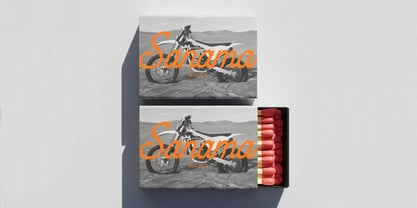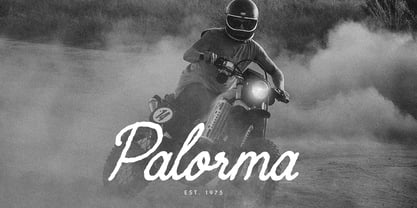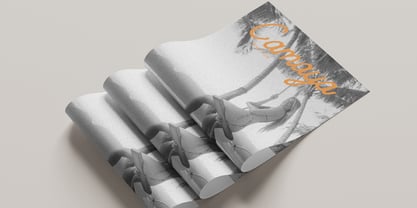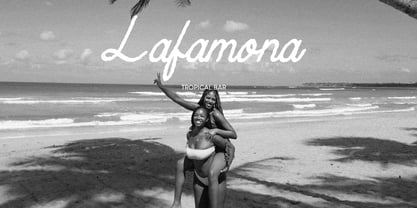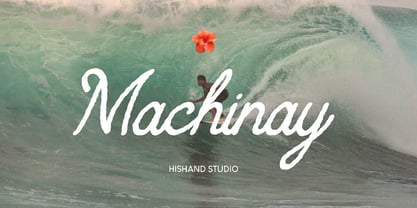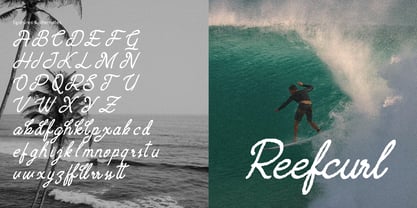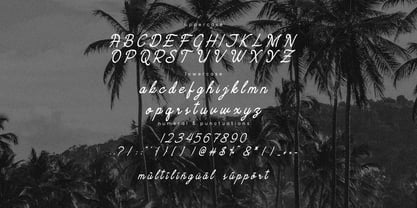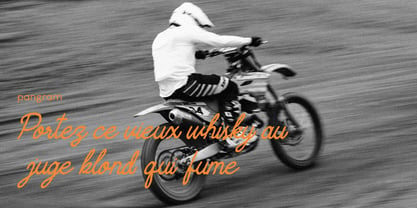
Machinay
La famille de polices Machinay a été conçue par Putu Dody Permana et publiée par Hishand Studio. Machinay contient 1 styles. En savoir plus sur cette famille
Machinay is a natural script typeface built for a relaxed, tropical mood. Its strokes flow the way handwriting does when there's no rush, slightly loose, a little uneven, with soft curves and gentle connections between letters. Instead of the polished uniformity of a digital script, Machinay keeps small imperfections that make it feel handwritten and human.
The letterforms lean casually, with varied stroke weight and open, breathable spacing that gives the whole typeface an airy, sun-soaked feel. It suits branding that wants warmth over polish: resort and hotel identities, tropical drink and skincare labels, surf and swimwear apparel, travel logos, wedding stationery with a barefoot elegance, and packaging that wants to feel handmade.
Machinay carries an easy, unhurried charm, bringing warmth and a sense of island life to any design it touches. Complete with :
- uppercase
- lowercase
- ligatures
- alternates
- multilingual support